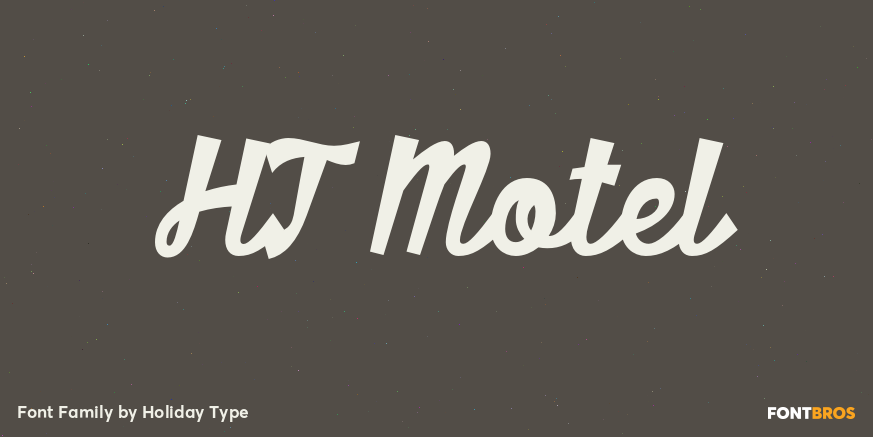
HomeFont BrosScripts: CasualHT Motel Scripts: Casual HT Motel FacebookXPinterestWhatsApp 1 of 1 About HT Motel Retro script based on shopfront lettering, wallpaint advertisements in Italy around 1950s.  DOWNLOAD ON FONT BROSThis font is sold and delivered by Font Bros. Font Canyon may earn a commission if you buy through this link. People also explored Recerboy Right Signature Font Black Seashore Font Velove Font Muttiffula Font Dislike Font Charline Font Uniwerek Font Vintage Monograms L Font 252 0 TagsHT Motel Font Previous articleHoliday and Party WordsNext articleAverta Standard PE LEAVE A REPLY Cancel reply Comment: Please enter your comment! Name:* Please enter your name here Email:* You have entered an incorrect email address! Please enter your email address here Website: Save my name, email, and website in this browser for the next time I comment. Personal Use Free Concrete Wall Personal Use Free Read more about this font Vivacious Personal Use Free Read more about this font Arnprior Personal Use Free Read more about this font Spectrashell Personal Use Free Read more about this font BLOG Modern Sans-Serif Fonts That Brands Love in 2025 In 2025, modern sans-serif fonts remain a top choice for brands looking to project clarity, professionalism, and... Top 7 Google Fonts Alternatives for Faster and Privacy-Friendly Web Design (2025) The 10 Best Handwriting Fonts to Add Personality to Your Designs Where to Buy American Fonts Online in 2024